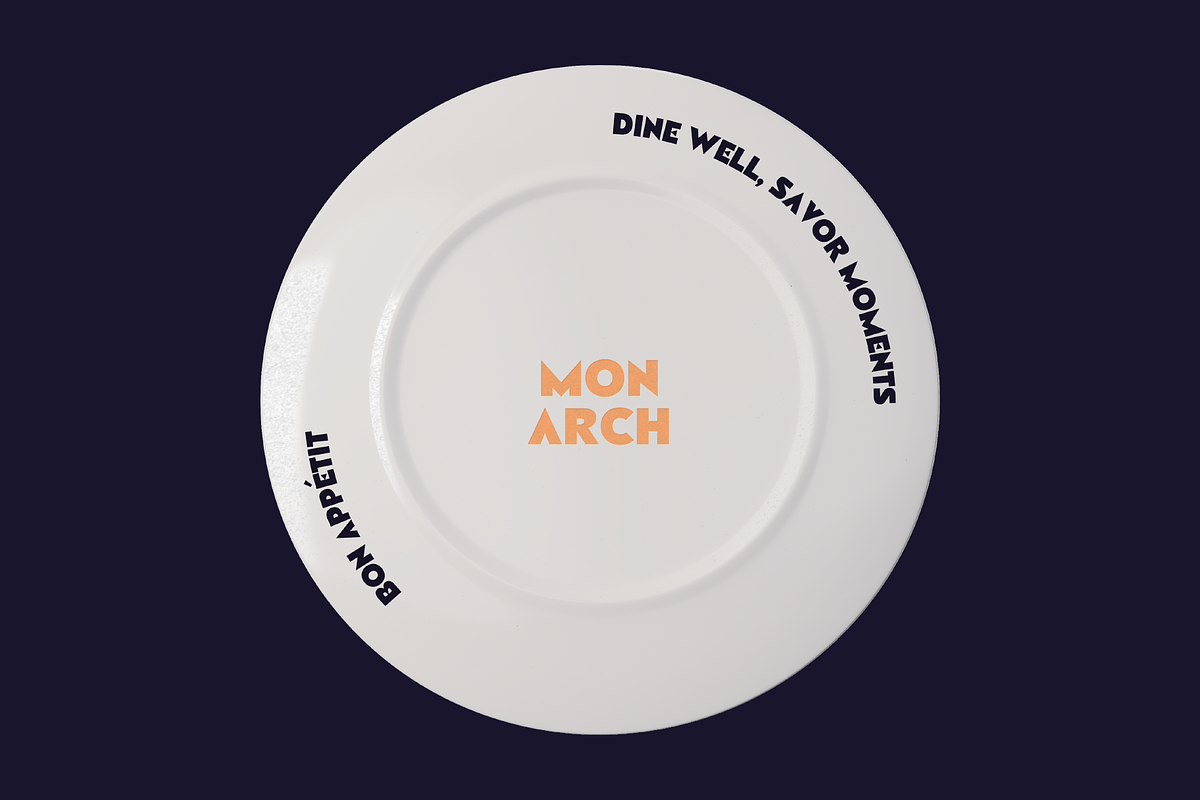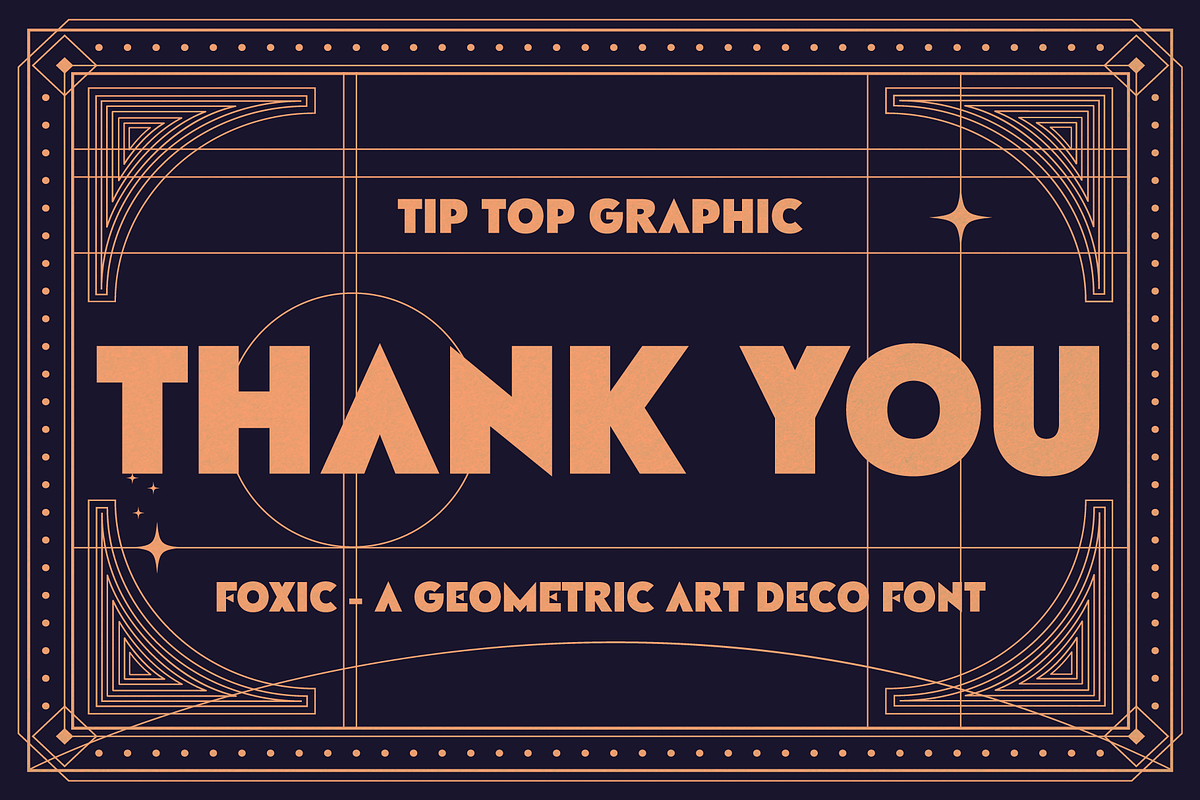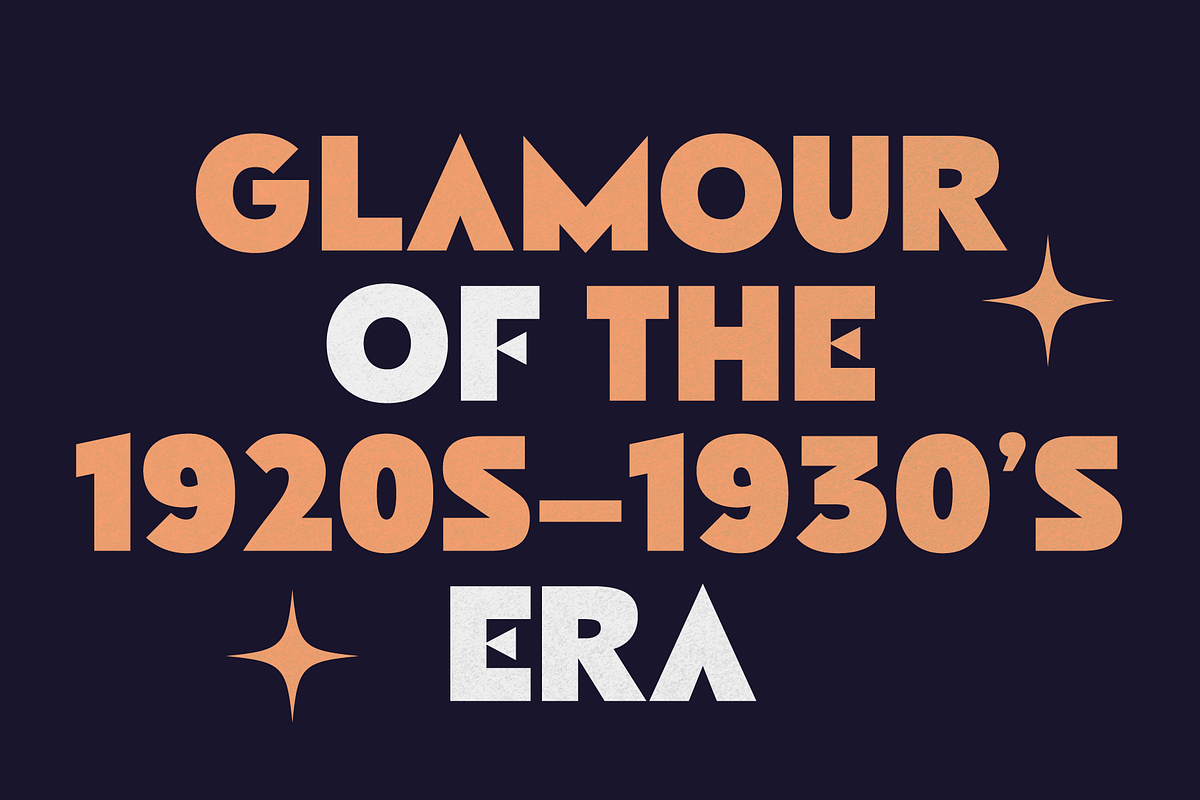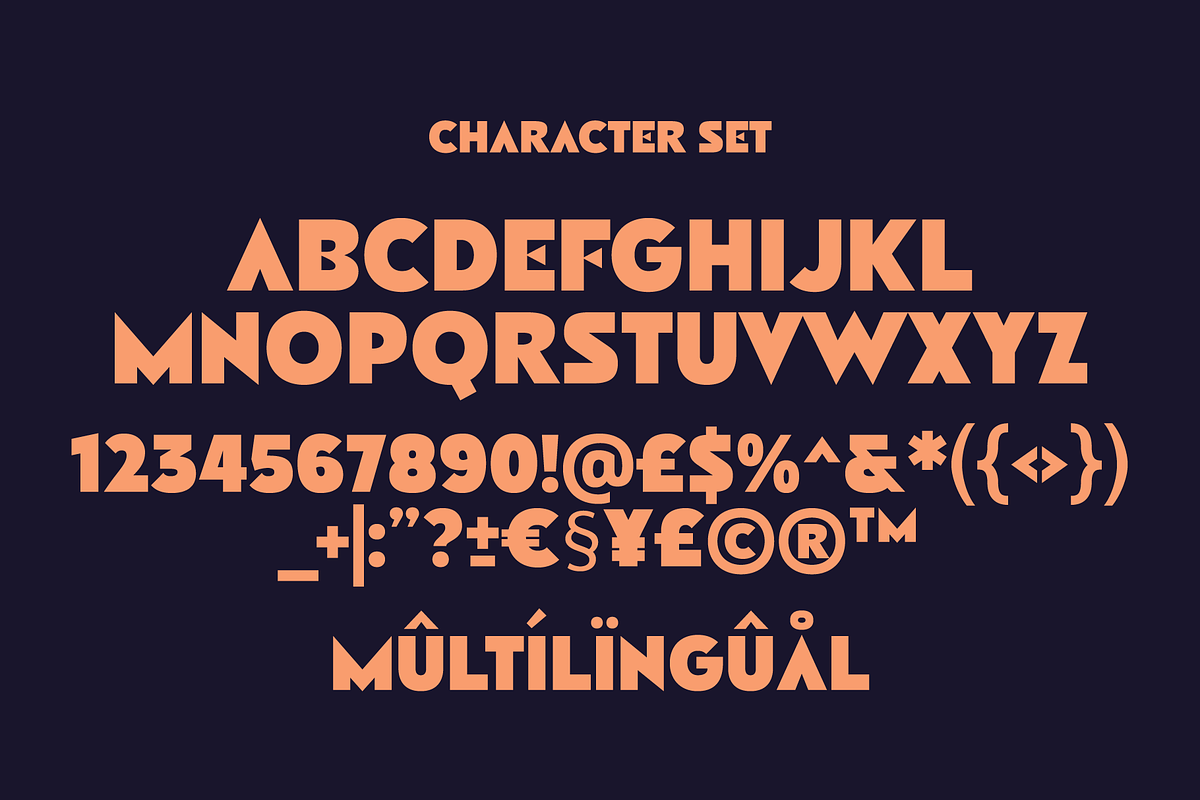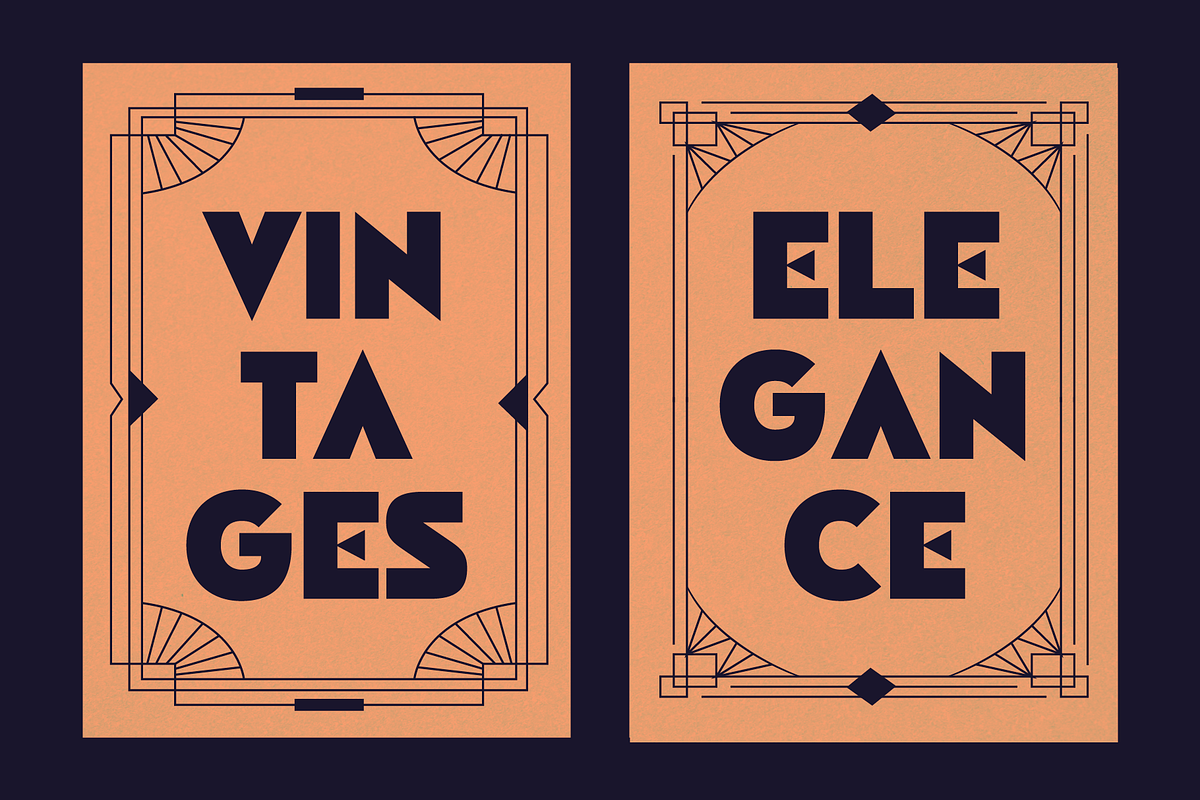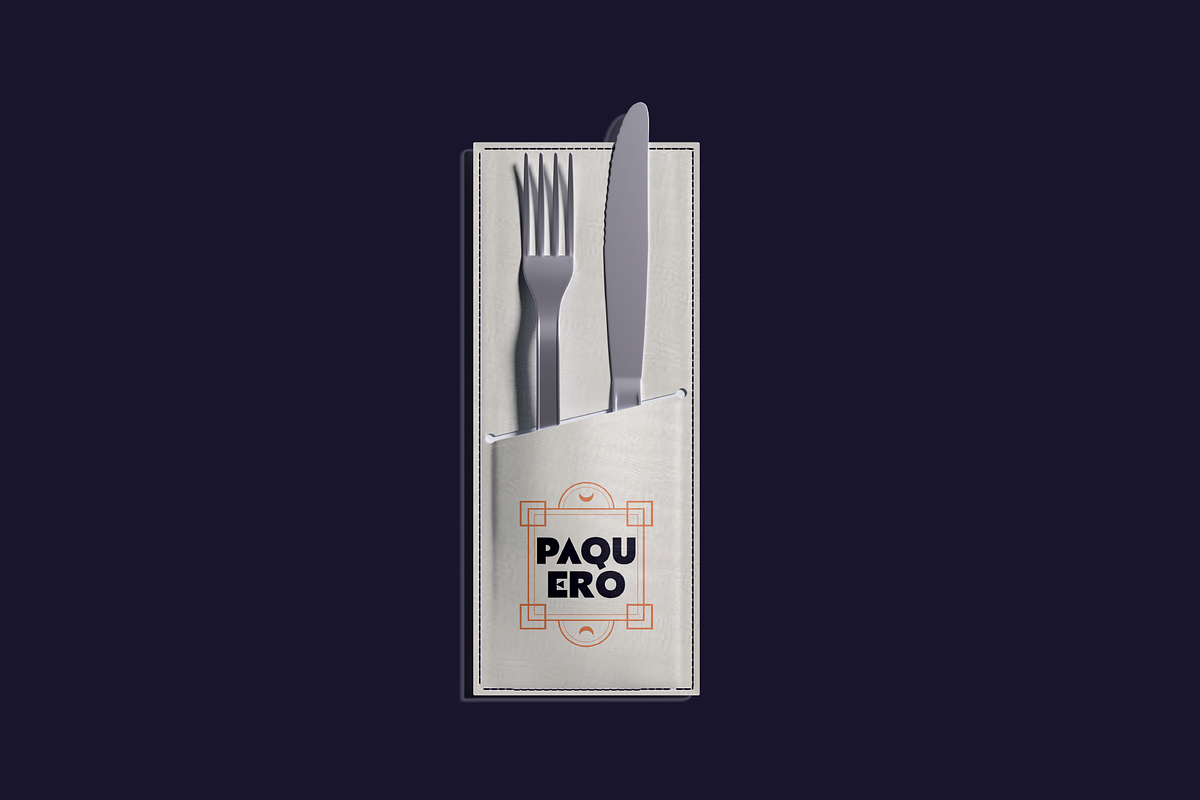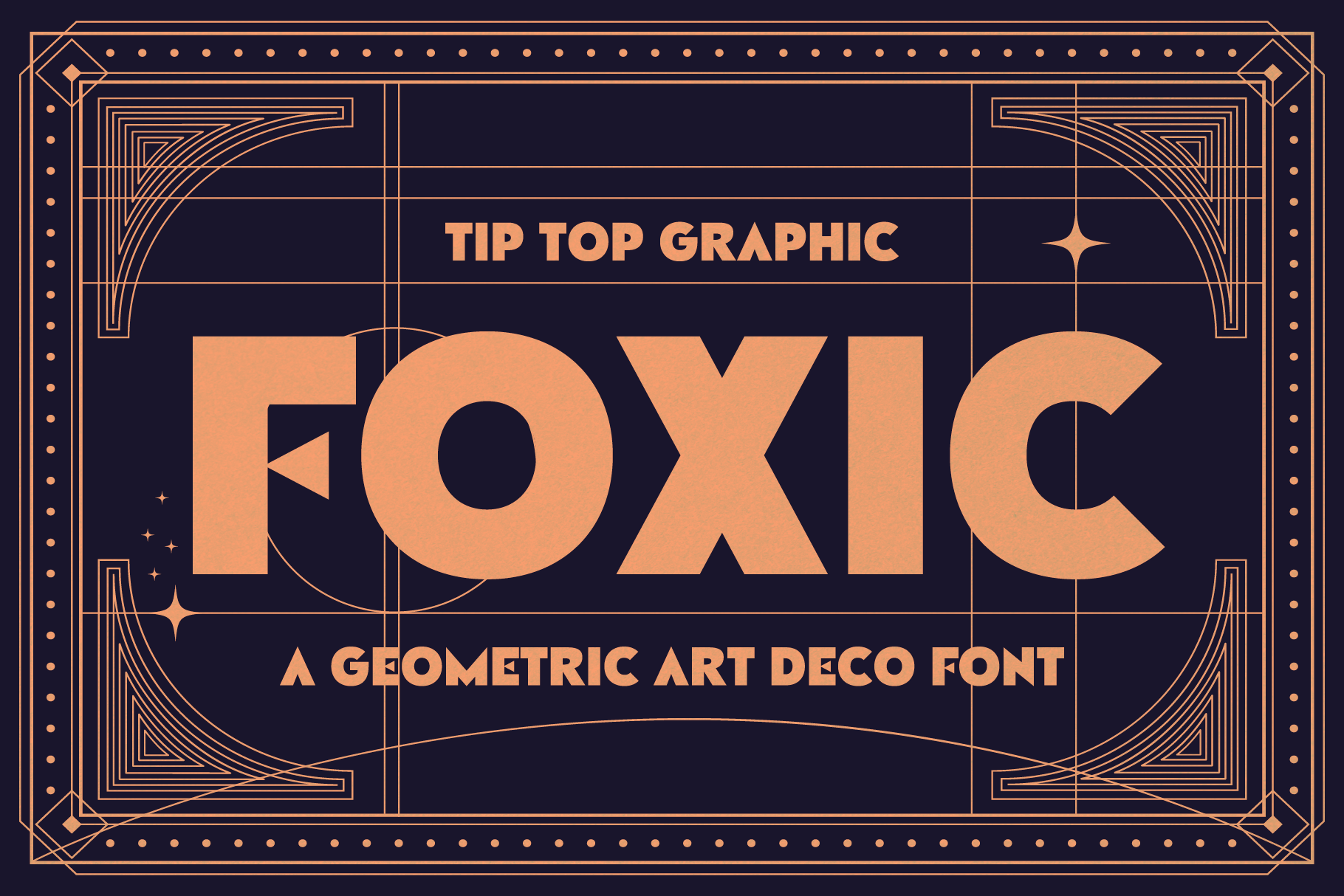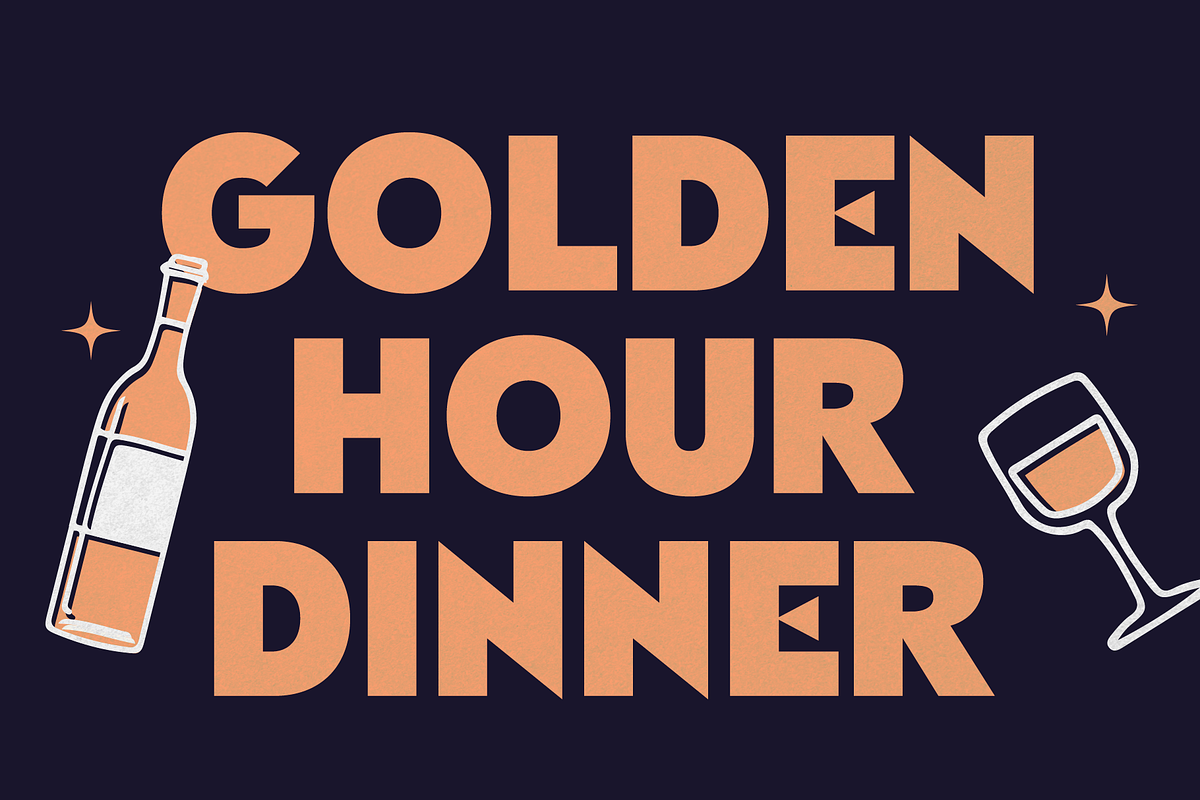
Foxic – A Geometric Art Deco Font
Foxic – A Geometric Art Deco Font is a bold and elegant typeface inspired by the timeless glamour of the Art Deco era. Built with clean geometric forms, sharp angles, and balanced proportions, Foxic delivers a luxurious yet modern feel. Perfect for logos, branding, posters, headlines, packaging, and editorial designs, this font adds a touch of vintage sophistication while remaining sleek and contemporary. Foxic is ideal for designers looking to create striking visuals with a classic Art Deco character and strong visual impact.